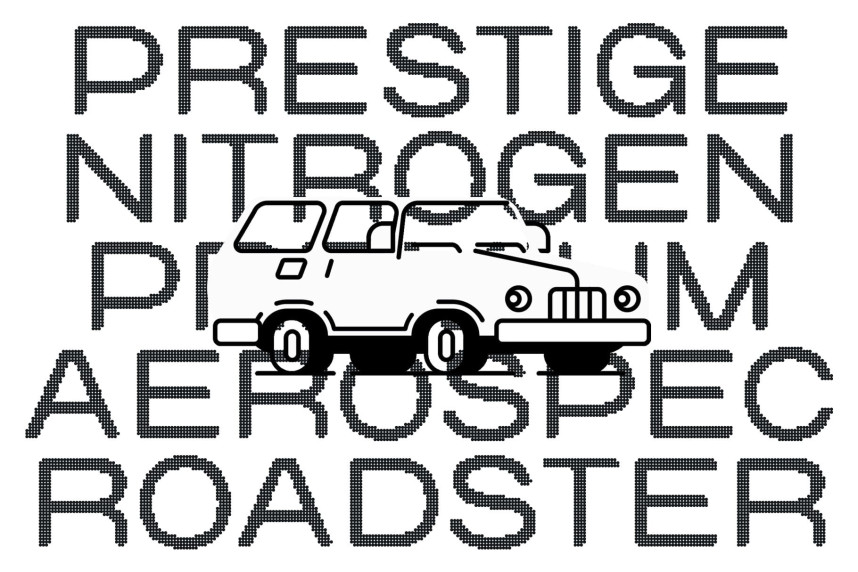
Rolide Rounded Disco Font
Rolide Rounded Disco Font – Modern Sans Serif with Rounded Style. This is a modern sans serif font that stands out with its smooth rounded shapes and expanded structure. Designed to feel approachable yet bold, its clean geometry carries a contemporary aesthetic that instantly captures attention. This rounded form gives the font a fresh and inviting personality, making it versatile for a wide range of creative applications.
What makes font unique is its dazzling disco effect. Each letter sparkles with a sense of rhythm and movement, giving the impression of visual vibration. This shimmering detail transforms ordinary text into something glamorous and dynamic, perfect for projects that want to radiate energy and celebration.